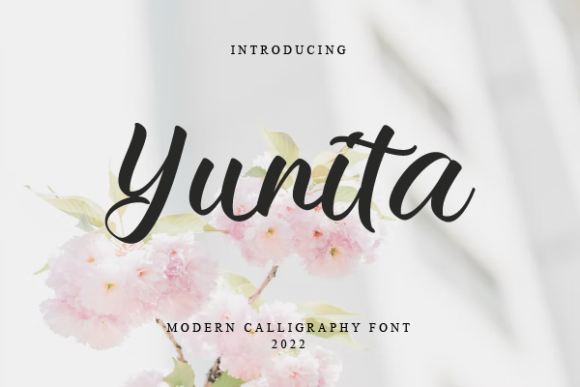
Introducing Yunita Font, the exquisite script font that embodies feminine elegance and timeless style. Crafted by Circle Studio, this font is a work of art, meticulously designed to capture the essence of grace and sophistication. Yunita is not just a font; it's an expression of creativity and individuality, a gateway to transforming your artistic visions into reality.
With its delicate curves and flowing lines, Yunita exudes a soft and inviting charm. It's a font that whispers of elegance, adding a touch of luxury to your designs. Whether you're a seasoned designer or just starting, Yunita is the perfect companion for your creative journey.
Immerse yourself in the world of fashion and creativity with Yunita, the font that redefines style and sophistication. Its alluring curves and playful strokes make it ideal for logos, t-shirt printing, and creative products. Yunita is a font that speaks to the heart, capturing the essence of individuality and self-expression.
Unleash your inner fashionista and embrace the beauty of Yunita. Explore new horizons of creativity, let your imagination soar, and leave a lasting impression with every design. From logos that exude confidence to t-shirt prints that radiate personality, Yunita is the key to unlocking your creative potential.
So why wait? Embark on a journey of artistic exploration with Yunita, the font that captures the essence of fashion and creativity. Transform your designs into masterpieces, captivate your audience, and leave an indelible mark on the world of art and design. Embrace the beauty of Yunita and let your creativity flourish.